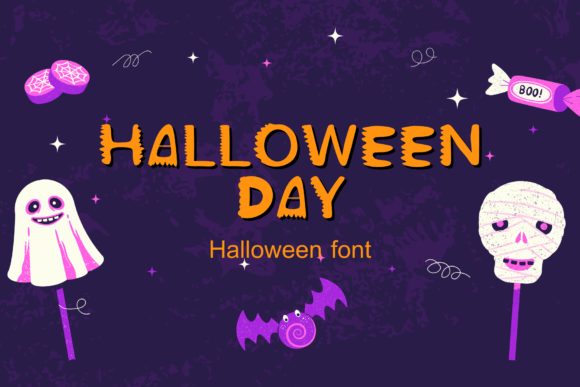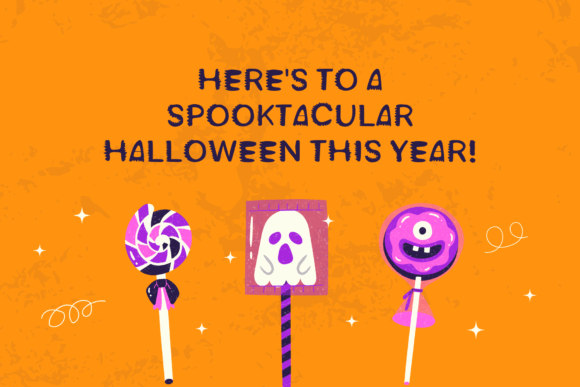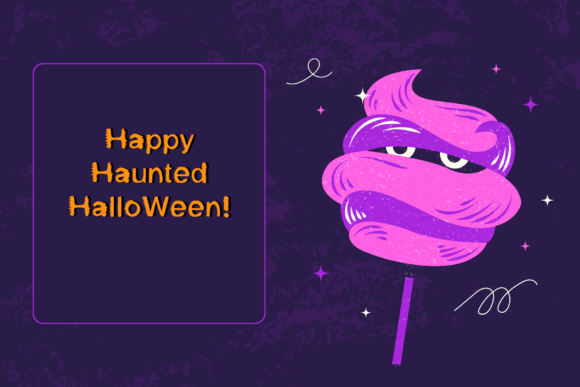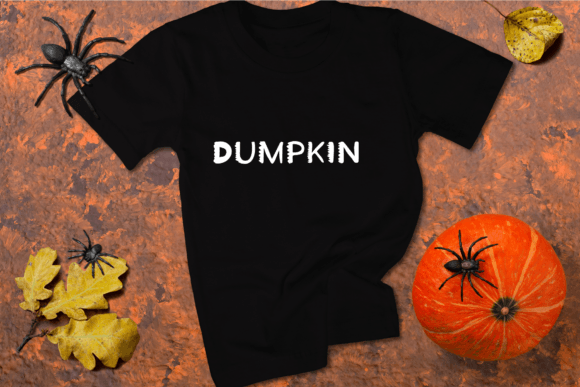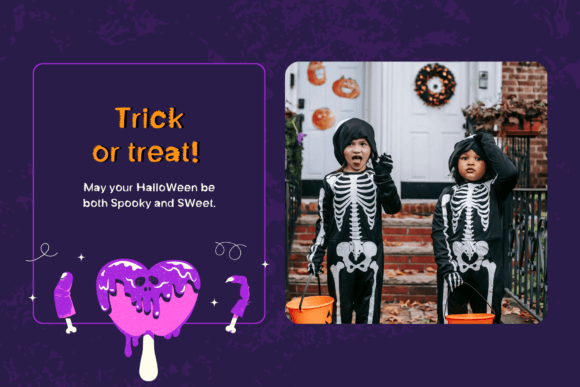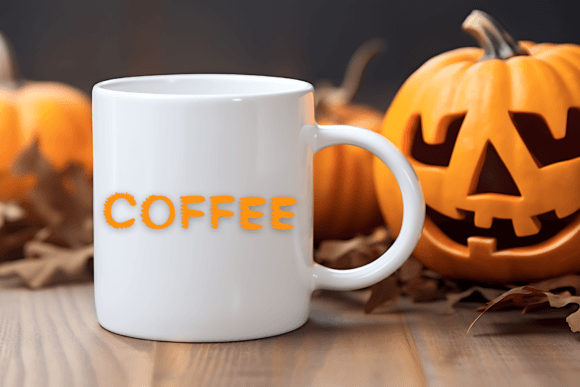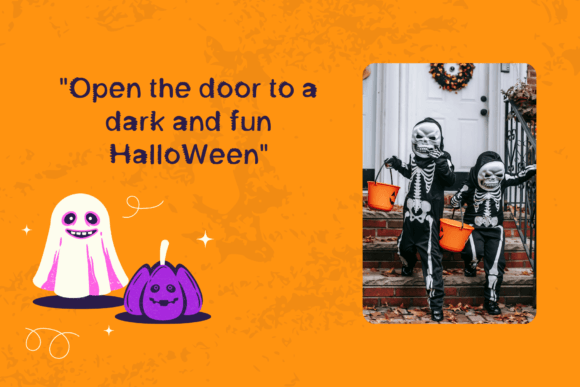
Spooky Season Just Got a Whole Lot Sweeter
As the sun sets on another crisp autumn evening, I find myself rummaging through my design files, searching for the perfect font to capture the essence of the spooky season. And then, it hits me – the perfect blend of creepy and cool that sets my creative juices flowing.
Enter the Halloween Day Font, a dripping fun and thick display font that’s sure to send shivers down the spines of your audience. Whether you’re designing a horror-themed poster, a spooky social media graphic, or a creepy card for your friends, this font is the perfect addition to your design arsenal.
What sets the Halloween Day Font apart is its PUA encoding, making it incredibly easy to access all the glyphs and swashes you need to create truly terrifying designs. As a designer, you know how valuable it is to have a versatile font that can elevate your projects to the next level – and the Halloween Day Font is sure to do just that.
Halloween Day Font Key Features
- Font Family: Halloween Day
- Unique Characteristics: Features a spooky and playful design, with intricate details and textures, making it perfect for Halloween-themed designs and decorations.
Halloween Day Font Review
Overall, I think the Halloween Day Font is a fun and playful choice for Halloween-themed projects. Here are some things that work well:
- ✨ The font’s irregular shapes and asymmetrical lines give it a spooky, hand-carved feel that’s perfect for Halloween.
- ✨ The font is highly legible, even at smaller sizes, which is great for projects where you need to fit a lot of text.
- ✨ The font includes a wide range of characters, including international characters and punctuation marks.
- ⚠️ The font may be too playful for projects that require a more serious tone.
- ⚠️ The font’s irregular shapes can make it difficult to use in projects where precision is key.
Overall, I think the Halloween Day Font is a great choice for Halloween-themed projects where you want to add a touch of whimsy and fun. However, it may not be the best choice for more serious projects or projects where precision is crucial.
The Halloween Day Font is perfect for:
- Halloween-themed designs (e.g. invitations, posters, etc.)
- Spooky or eerie designs (e.g. horror movie posters, etc.)
- Seasonal or holiday-themed designs (e.g. Christmas, Thanksgiving, etc.)